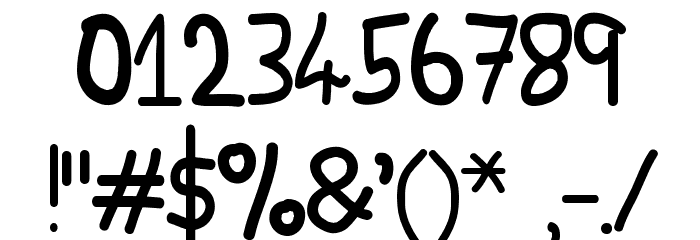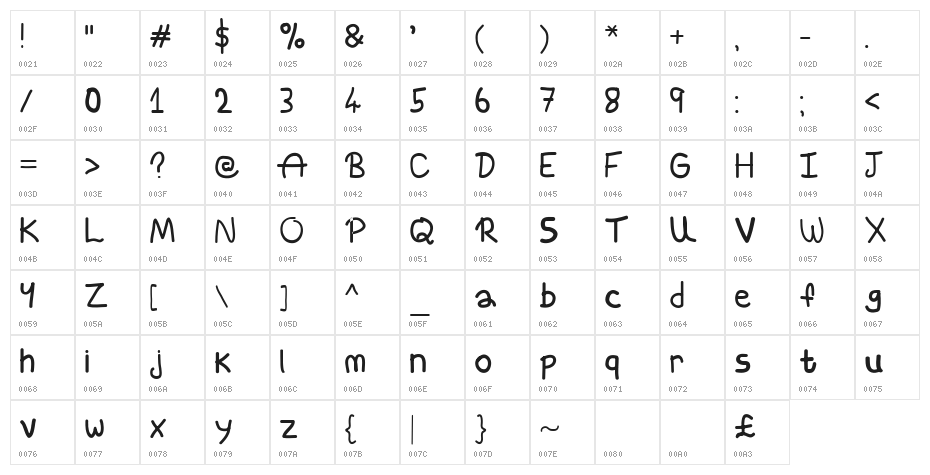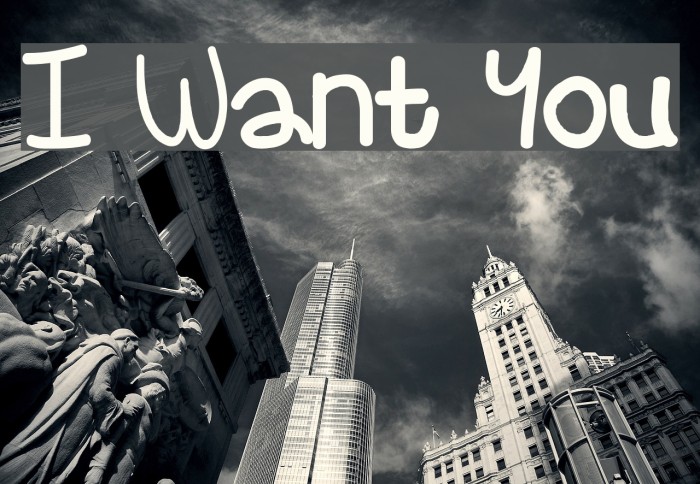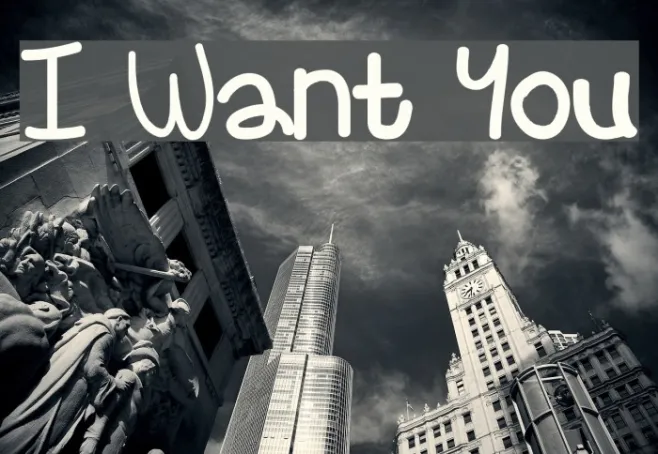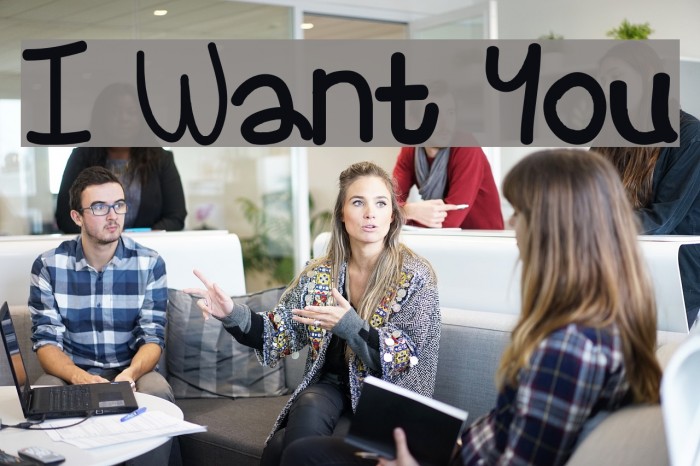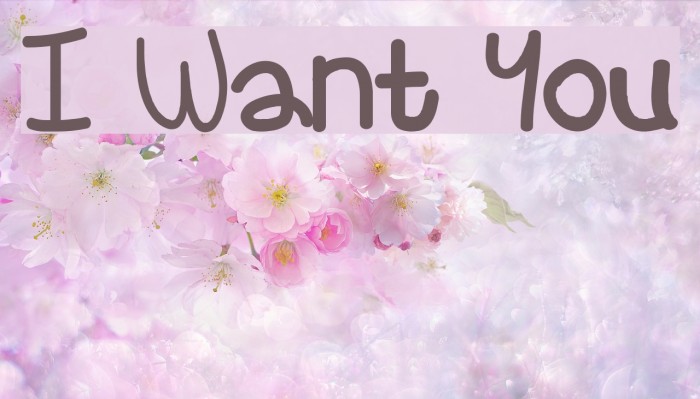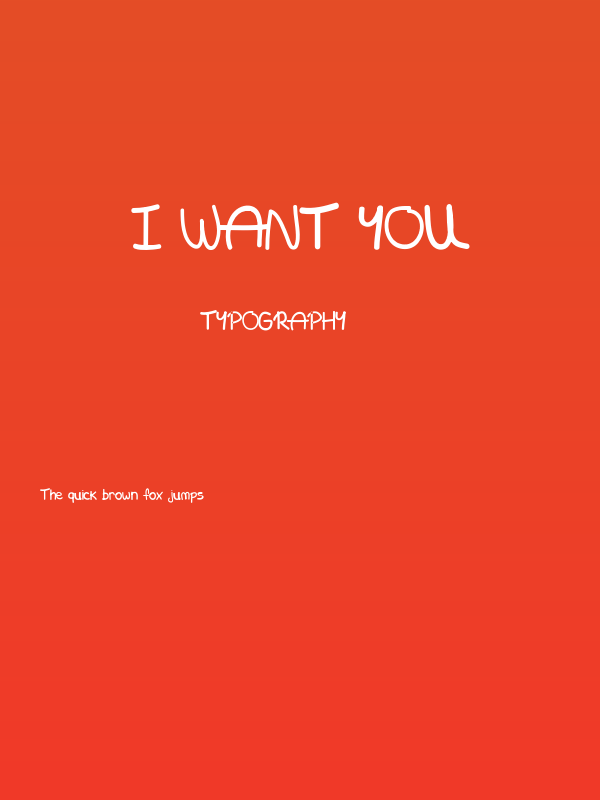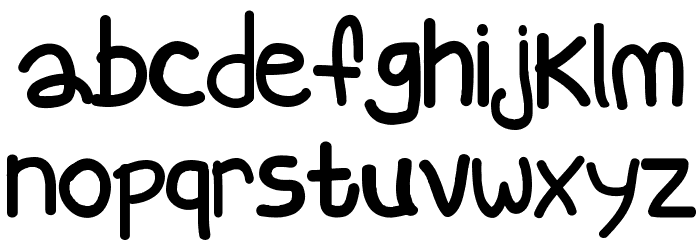
I Want You Font
I Want You Description
This playful and whimsical font features rounded, hand-drawn characters that convey a sense of fun and creativity. The letters are slightly irregular, giving them a casual and approachable feel. The strokes are consistent in width, providing a uniform appearance across all characters. The font includes a full set of uppercase and lowercase letters, numbers, and a variety of special characters, making it versatile for different uses. Its informal style is perfect for projects that require a personal touch or a friendly tone.
| Proposed Projects | Ideal for children's books, greeting cards, playful branding, and casual invitations. |